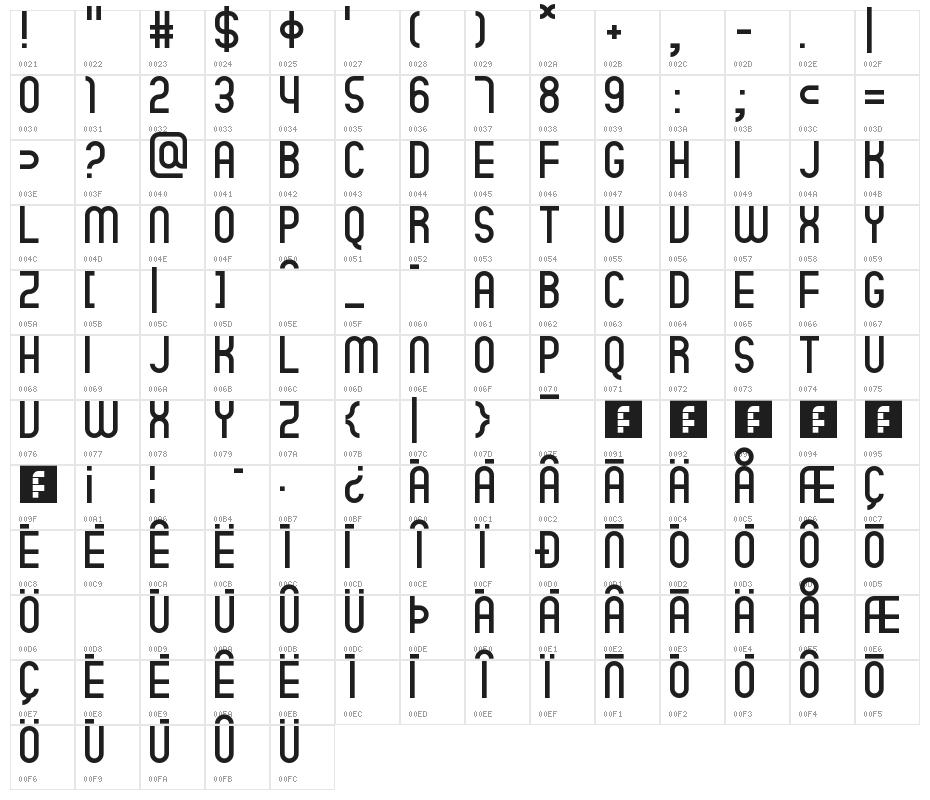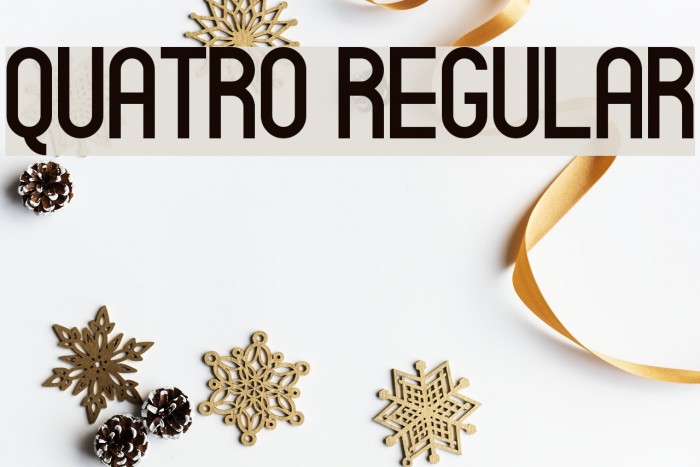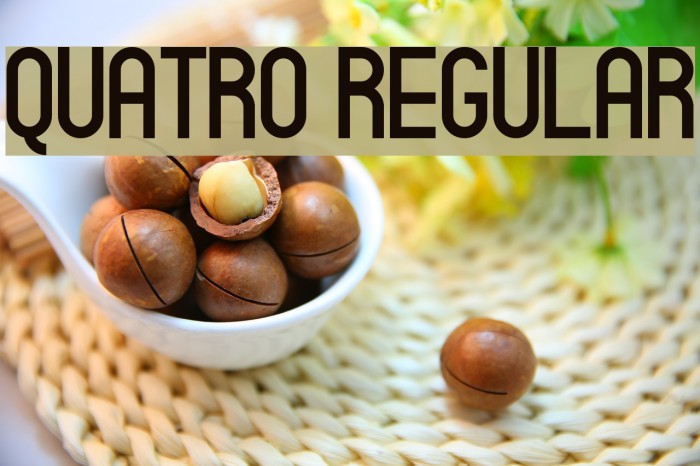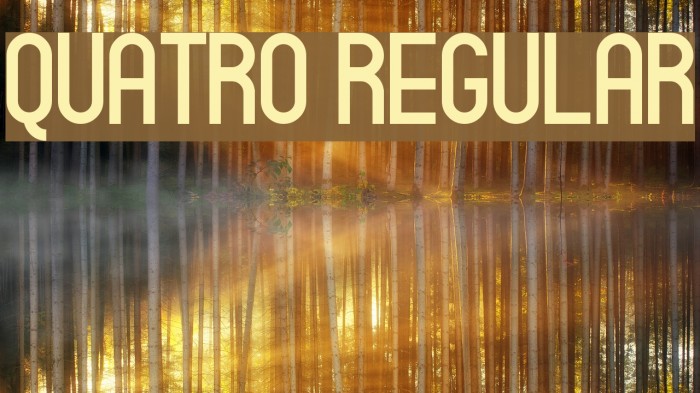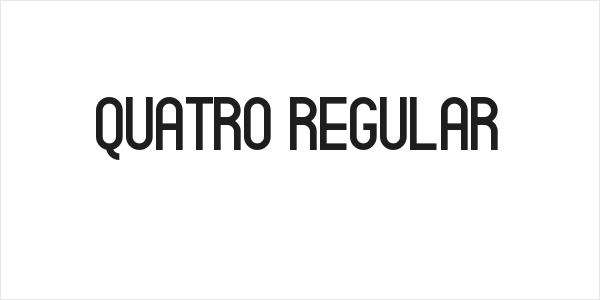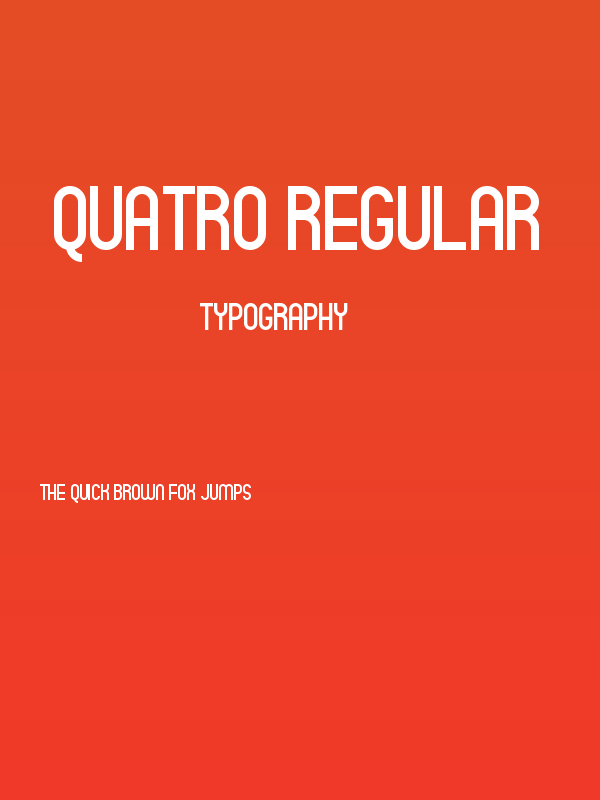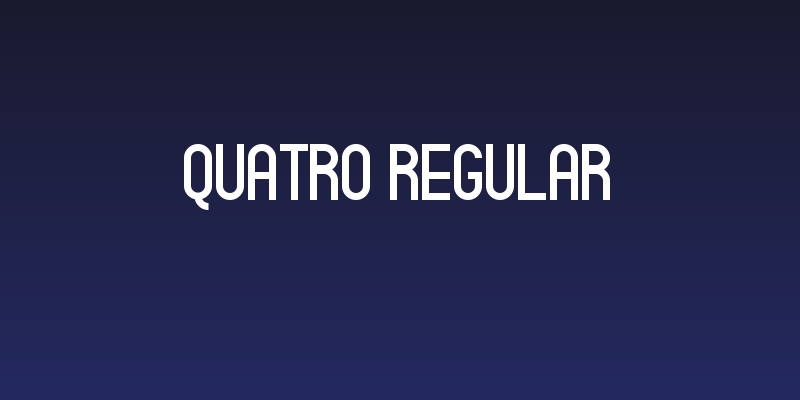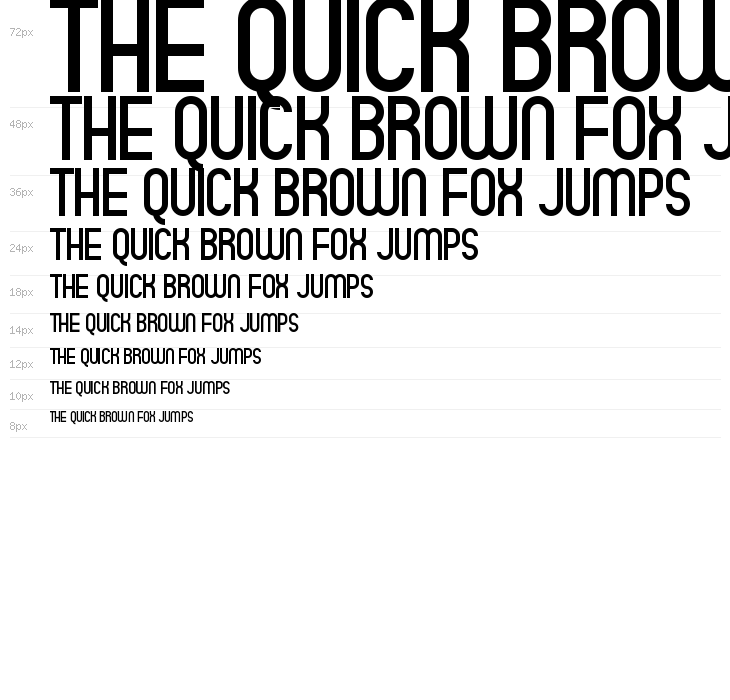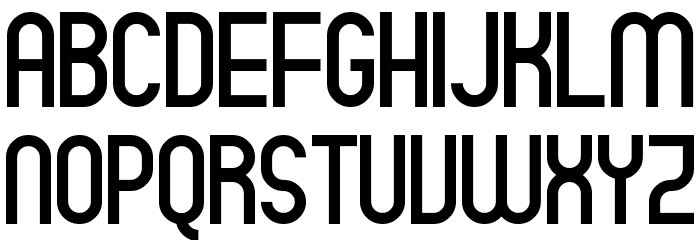
Quatro Regular Font
Quatro Regular Description
This font features a modern and geometric design with clean, rounded edges and uniform stroke widths. The characters are tall and narrow, giving a sleek and contemporary appearance. The uppercase and lowercase letters maintain a consistent height, enhancing readability. The numerals and special characters are designed with the same geometric precision, ensuring a cohesive look across all text. This font's simplicity and clarity make it versatile for various design applications.